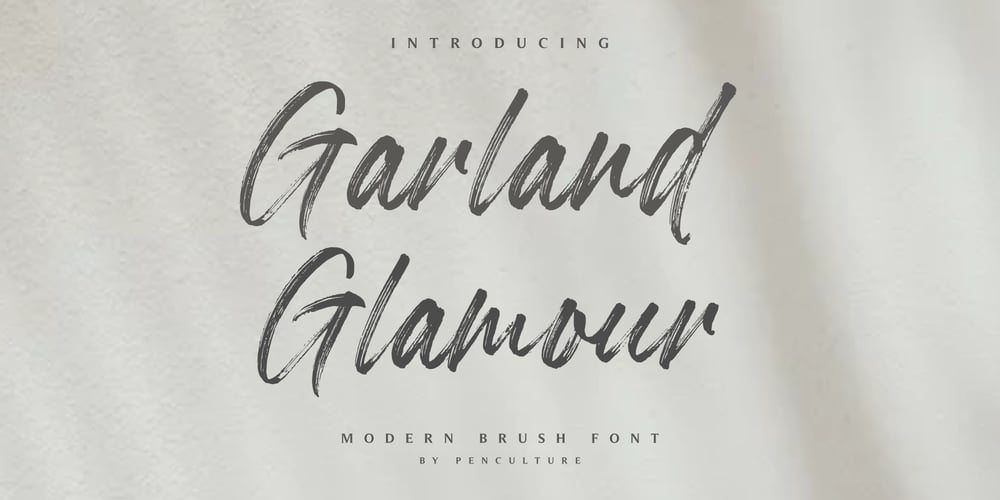
Garland Glamour Font Family was designed by Revo Farsiky and published by Pen Culture. Garland Glamour contains 1 styles and family package options. Introducing the new Garland. It’s modern brush font with beautiful and natural brush stroke that perfect for logo, poster, product, apparel, packaging and many more.Garland come with full all caps, number, punctuation. this font very easy to use, so what you waiting for.I really hope you enjoy it – please do let me know what you think, comments & likes are always hugely welcomed and appreciated. More importantly, please don’t hesitate to drop me a message if you have any issues or queries.Thank you